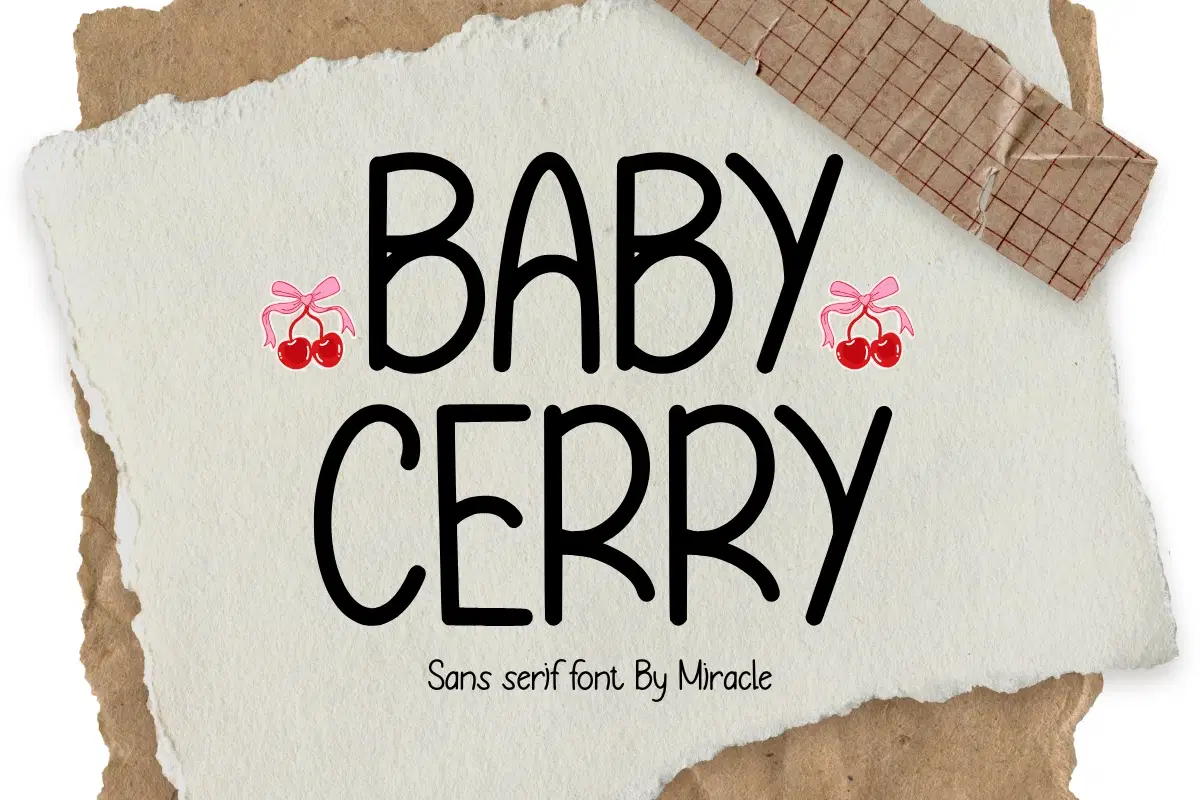
Bring a touch of joy and warmth to your creative projects with Baby Cerry, a delightful sans serif font by Miracle. Characterized by its whimsical, hand-drawn aesthetic and clean legibility, this font is perfectly crafted for children's branding, nursery decor, cute invitations, and playful product packaging.
Whether you are working on a storybook cover, a vibrant logo for a kids' brand, or engaging social media graphics, Baby Cerry offers a friendly and approachable vibe that resonates with both kids and parents alike. Its soft curves and organic feel make every word look like a sweet treat!